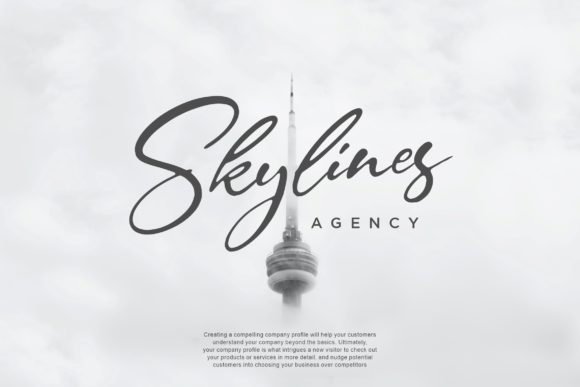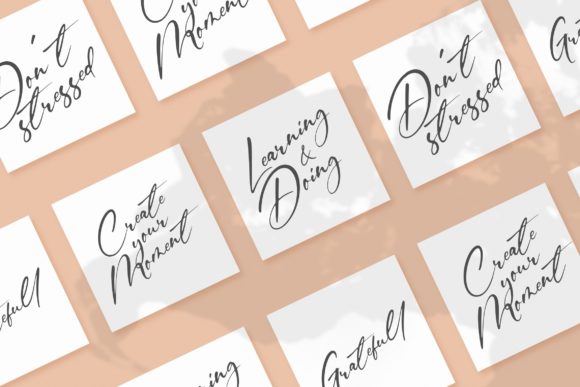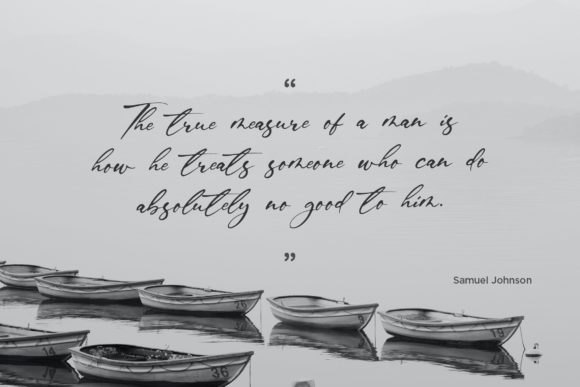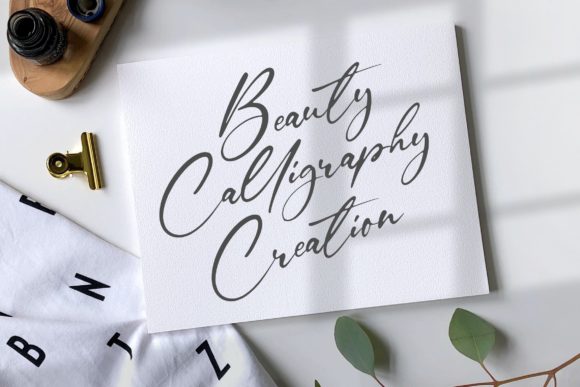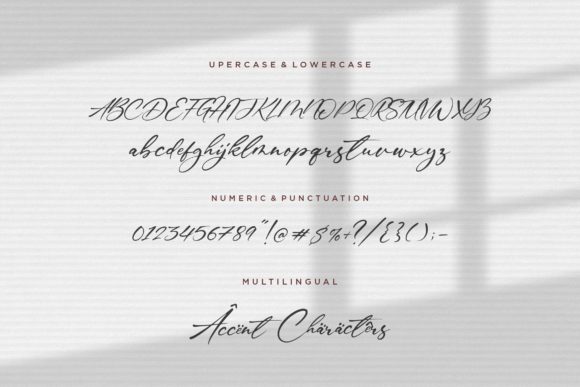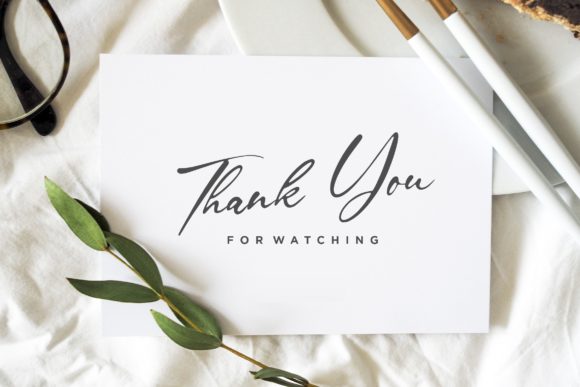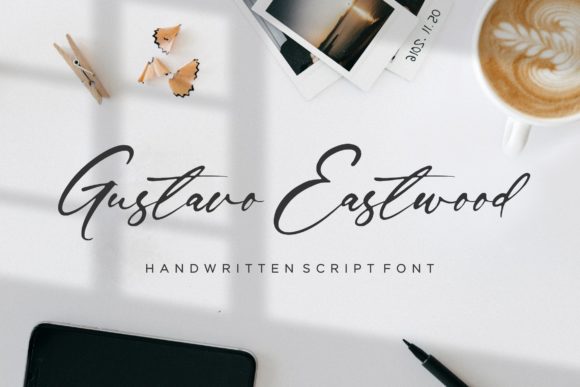
Gustavo Eastwood Font: Elevate Your Designs with Elegance and Sophistication
In the world of typography, fonts play a crucial role in conveying the tone and personality of a design. For designers and crafters seeking to add a touch of elegance and sophistication to their work, Gustavo Eastwood Font is an exceptional choice. This beautiful and refined script font is perfect for creating stunning logos, branding materials, invitations, stationery, wedding designs, social media posts, and more.
The Characteristics of Gustavo Eastwood Font
Gustavo Eastwood Font boasts a classy, elegant, and modern look that sets it apart from other script fonts. Its refined strokes and beautiful letterforms make it an ideal choice for designs that require a high level of sophistication. The font’s versatility allows it to be used in various design applications, from luxurious branding and advertising to intimate wedding invitations and social media graphics.
Key Features of Gustavo Eastwood Font
- Beautiful and Refined Script Font: Gustavo Eastwood Font features intricate and flowing letterforms that add a touch of elegance to any design.
- Classy, Elegant, and Modern Look: The font’s classic and sophisticated appearance makes it perfect for designs that require a high level of refinement.
- Versatile and Multi-Purpose: Gustavo Eastwood Font can be used for a wide range of design applications, including logos, branding, invitations, stationery, wedding designs, social media posts, and more.
- Easy to Read and Understand: Despite its elegant and refined appearance, Gustavo Eastwood Font remains highly legible, making it suitable for both digital and print designs.
Design Applications for Gustavo Eastwood Font
Gustavo Eastwood Font is an incredibly versatile font that can be used in various design applications. Here are some ideas to get you started:
- Logos and Branding: Create a lasting impression with a custom logo or branding materials that exude elegance and sophistication.
- Invitations and Stationery: Add a touch of refinement to your invitations, greeting cards, and stationery with Gustavo Eastwood Font.
- Wedding Designs: Make your wedding designs truly unforgettable with the font’s beautiful and elegant letterforms.
- Social Media Posts: Elevate your social media graphics with Gustavo Eastwood Font’s modern and sophisticated look.
Why Choose Gustavo Eastwood Font?
With so many fonts available, why choose Gustavo Eastwood Font? Here are a few compelling reasons:
- Unique and Distinctive: Gustavo Eastwood Font offers a unique and distinctive look that sets it apart from other script fonts.
- Highly Legible: The font’s elegant and refined appearance does not compromise its legibility, making it suitable for both digital and print designs.
- Versatile and Multi-Purpose: Gustavo Eastwood Font can be used in various design applications, making it a valuable addition to any designer’s toolkit.
In conclusion, Gustavo Eastwood Font is an exceptional choice for designers and crafters seeking to add a touch of elegance and sophistication to their work. Its beautiful and refined script font, classy and modern look, and versatility make it perfect for a wide range of design applications. Whether you’re creating logos, branding materials, invitations, stationery, wedding designs, or social media posts, Gustavo Eastwood Font is sure to elevate your designs to the next level.